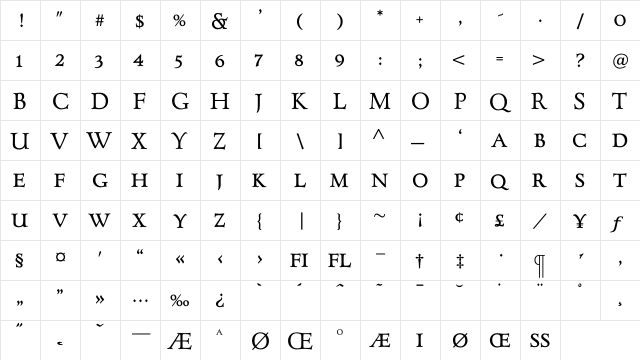
ForumTitlingBold Regular
Design Context for ForumTitlingBold Typeface
ForumTitlingBold offers clean, dependable letterforms without strong stylistic allegiance, making it a practical choice for designers who need flexibility. The heavy weight commands attention and anchors typographic hierarchies.